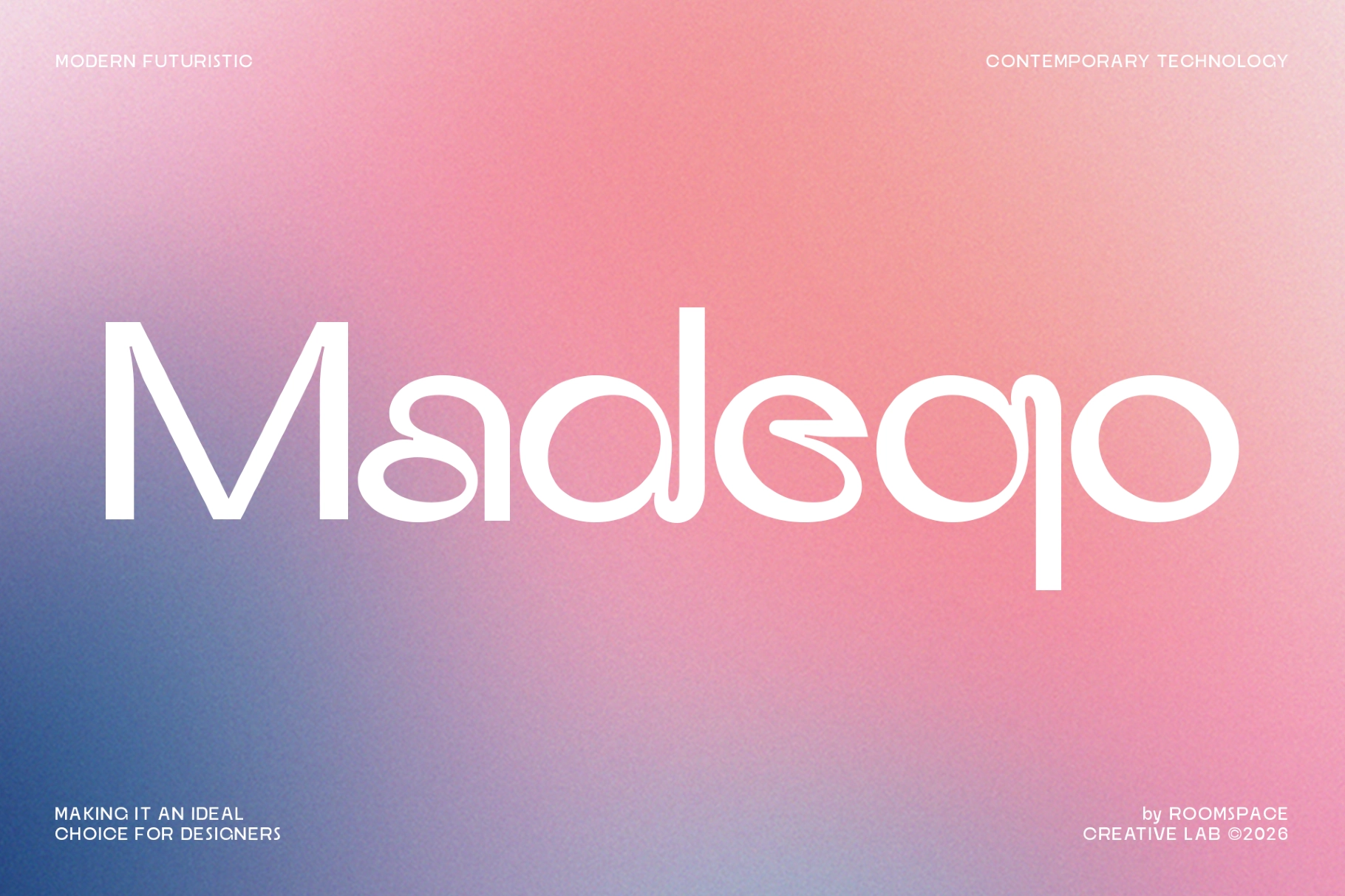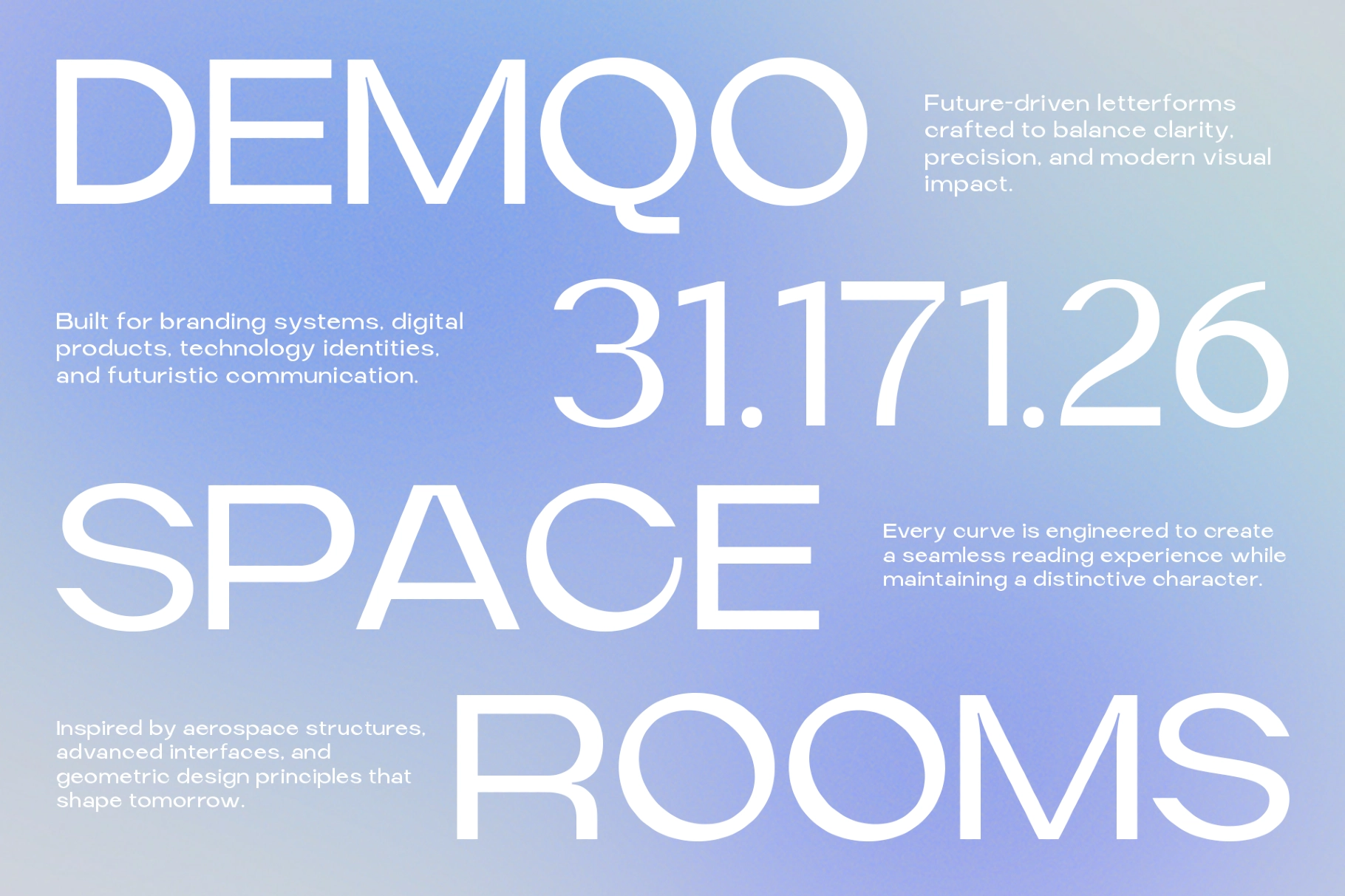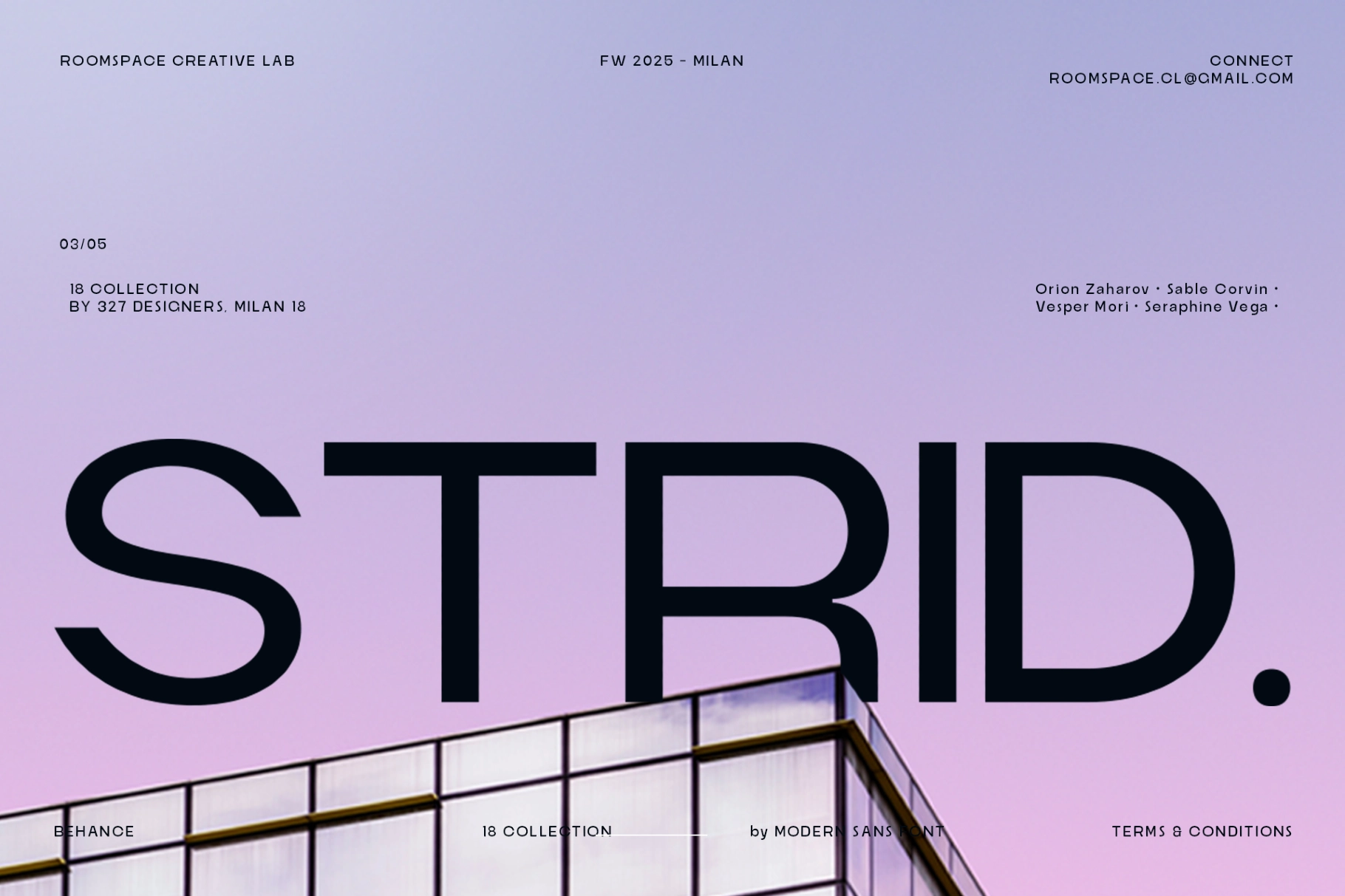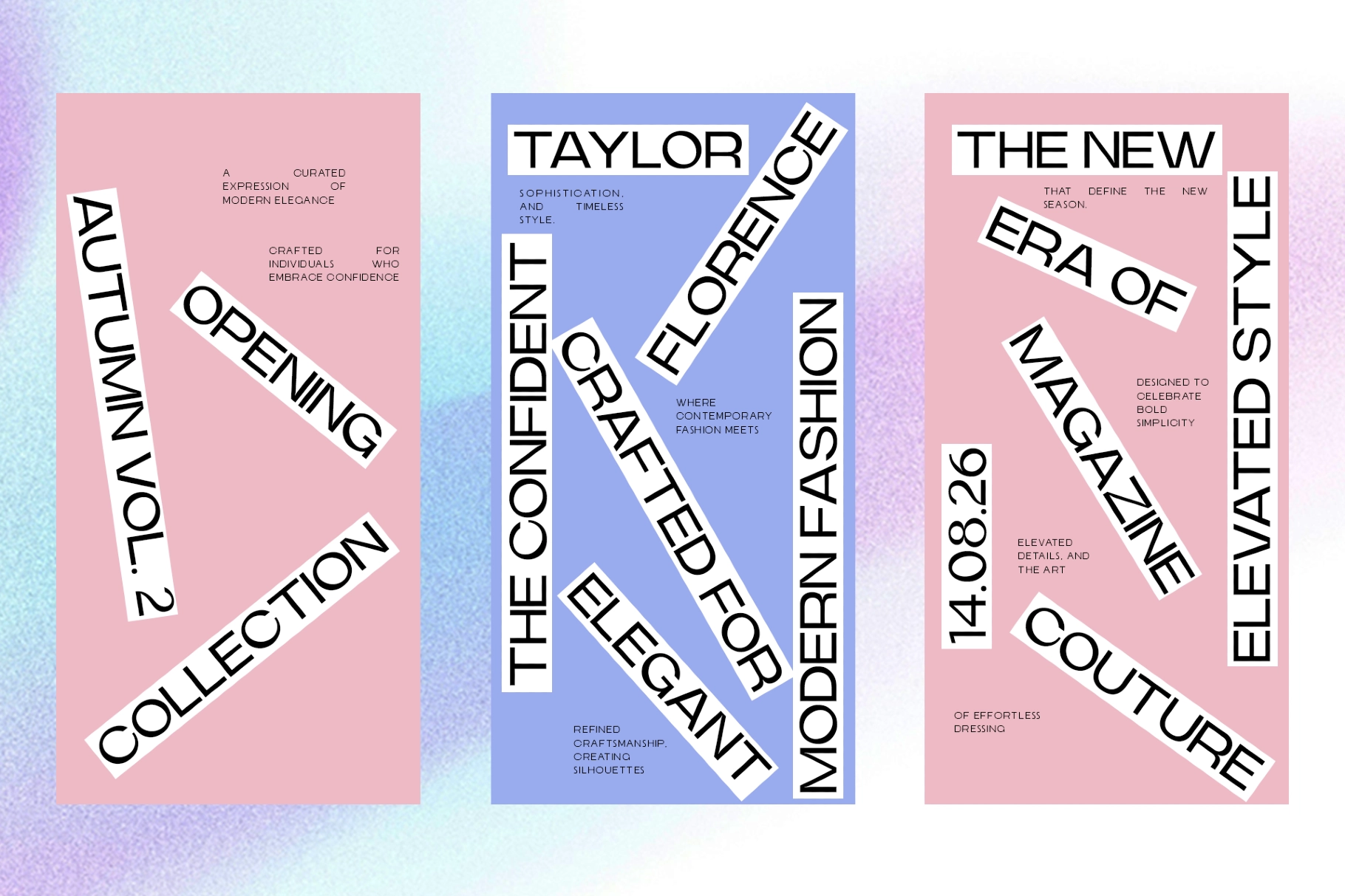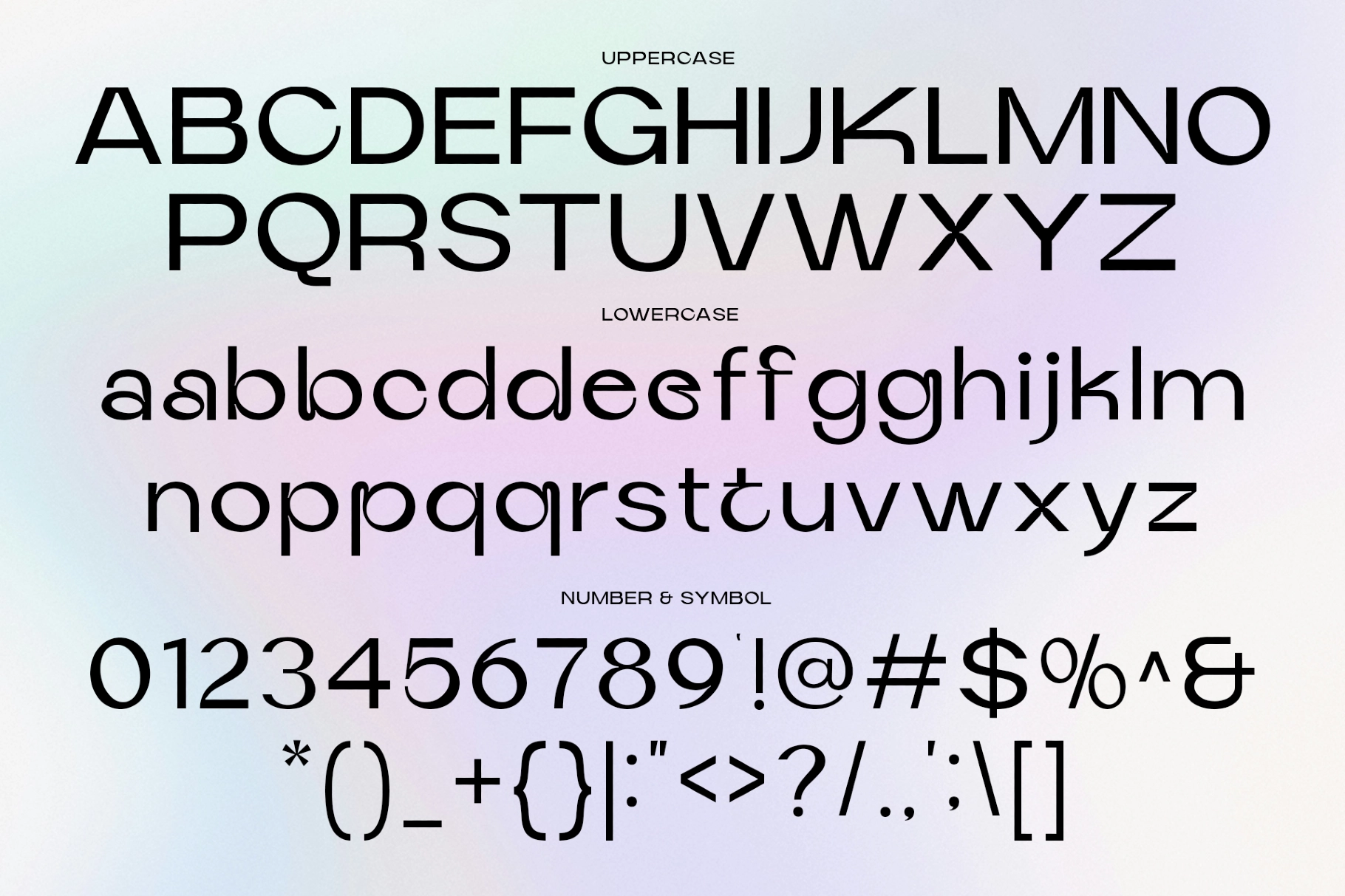
Madeqo – Futuristic Display Font
Madeqo is a futuristic display font built from flat geometric strokes, rounded terminals, and a set of connecting ligatures that let adjacent letters merge into one continuous shape. The construction pulls from aerospace paneling and interface grids, so uppercase forms hold wide, mechanical proportions while lowercase pairs loop into a single fluid stroke. The result stays sharp at display size and holds up cleanly in running text.
Madeqo works best in branding systems that want a tech-forward voice without losing warmth, thanks to the rounded joins softening the geometry. Use it for startup logos, tech branding, software identities, product launches, editorial titles, magazine covers, app promos, dashboards, hero headlines, packaging design, and social media graphics.
• Uppercase & lowercase;
• Numerals, punctuation & symbols;
• Unique connecting ligatures;